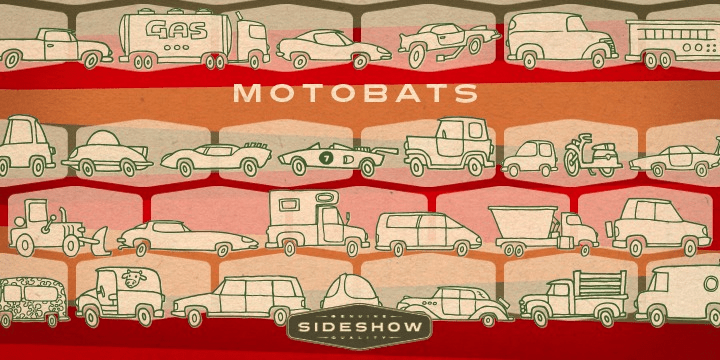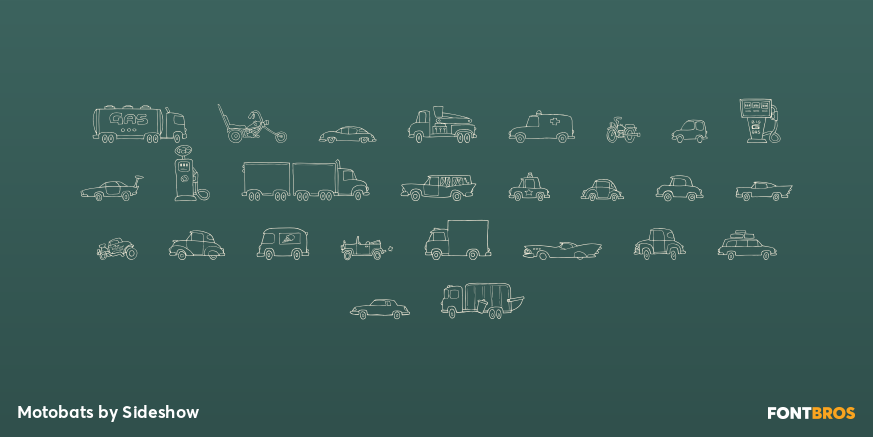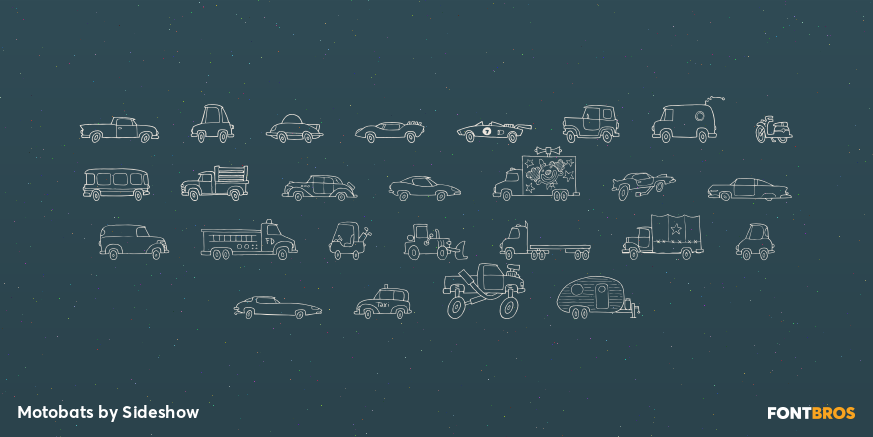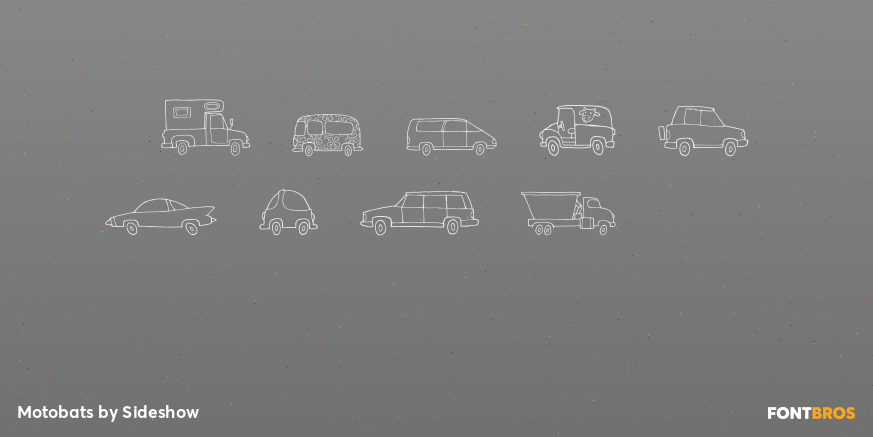
Motobats
Font Family by Sideshow
The Sideshow Automotive Engineering Department presents a high mileage dingbat set that'll really move you. We've just rolled out a motorific collection of cars, trucks, buggies, top-fuel dragsters, cop cars and even ice cream vans! Now it's bumper to bumper fun for your next automotive adventure with Motobats!